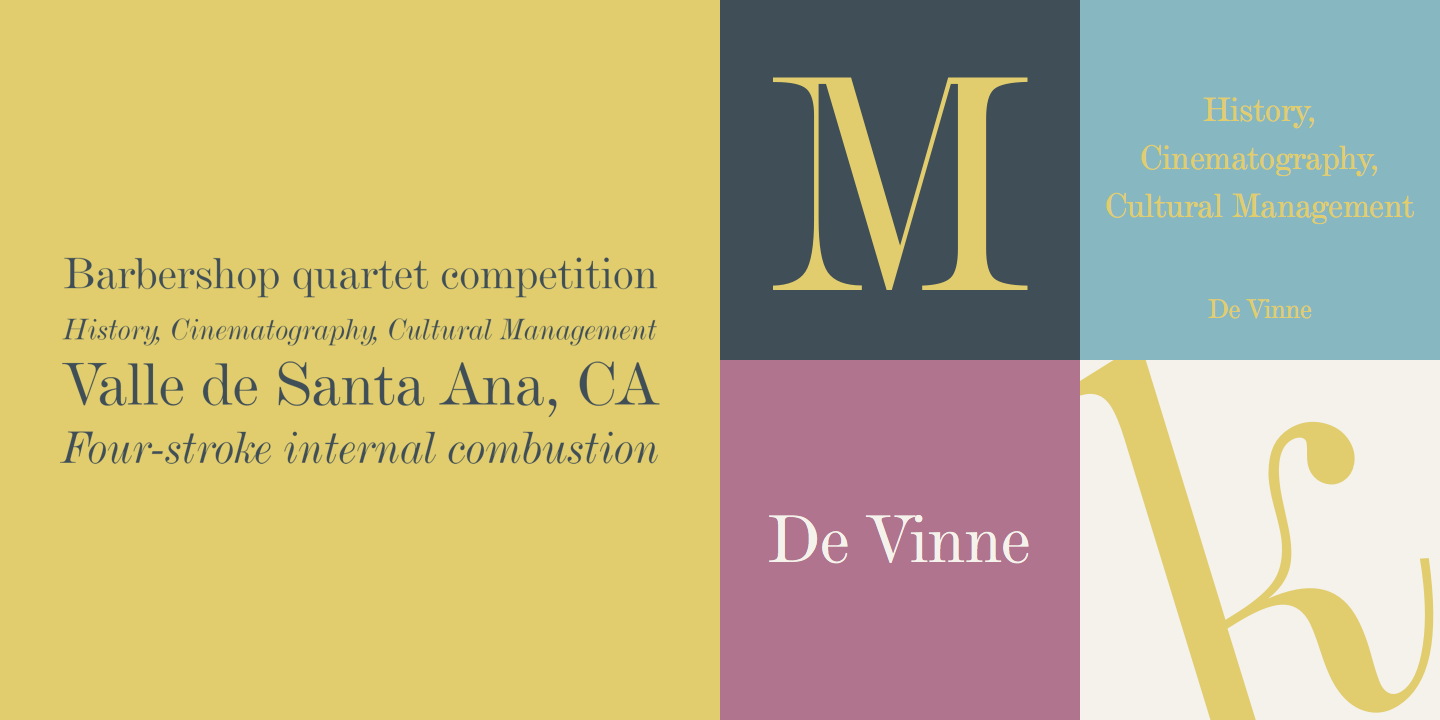
Step back into the golden age of typography with De Vinne Font Free Download, an elegant and distinctive serif typeface inspired by late 19th-century American printing. Named after renowned printer Theodore Low De Vinne, this font captures the refined charm of the Arts and Crafts movement with its robust letterforms and decorative flair.
Why De Vinne Font Stands Out
1. Historical Elegance Reimagined
Strong, chiseled serifs with subtle bracketing
Distinctive ball terminals on select characters
Robust strokes optimized for modern printing
2. Versatile Design Applications
Perfect for:
Certificate and diploma design
Cultural institution branding
Craft beverage labeling
Historical publications
Luxury wedding stationery
3. Premium Typographic Features
Multiple weights including decorative ornaments
True small caps for authentic period styling
Extensive ligature set
Optimized for letterpress reproduction
Professional Implementation
De Vinne Font Free Download excels in:
Heritage brand identity systems
Museum exhibition graphics
Premium packaging design
Book title pages
Commemorative publications
Combine with decorative borders for period authenticity
Designer Tip: Use at 14pt or larger to showcase its beautiful details.
Includes authentic 19th-century typographic ornaments
Alternative historic letterforms
Perfect for foil stamping and embossing
Why It's Special:
De Vinne bridges historical accuracy with contemporary usability, offering today's designers authentic period character without sacrificing modern functionality.
Perfect Pairing:
Combine with an Arts & Crafts-inspired sans like Morris Troy for complete historical design systems.
Pro Insight:
The font's ink traps and slightly concave serifs make it particularly effective for letterpress reproduction, capturing the authentic look of traditional printing.
Includes Victorian-era flourishes
Special border elements
Authentic price markers for period reproductions
Historical Note:
The original De Vinne faces were commissioned by Theodore Low De Vinne, president of the American Type Founders Company, representing the pinnacle of late 19th-century American typographic craftsmanship.
Designer Secret:
Use De Vinne with generous leading (1.5x font size) and wide margins to recreate authentic Victorian-era page layouts.
Technical Advantage:
Includes both lining and old-style figures, giving designers flexibility for both historical recreations and contemporary applications.